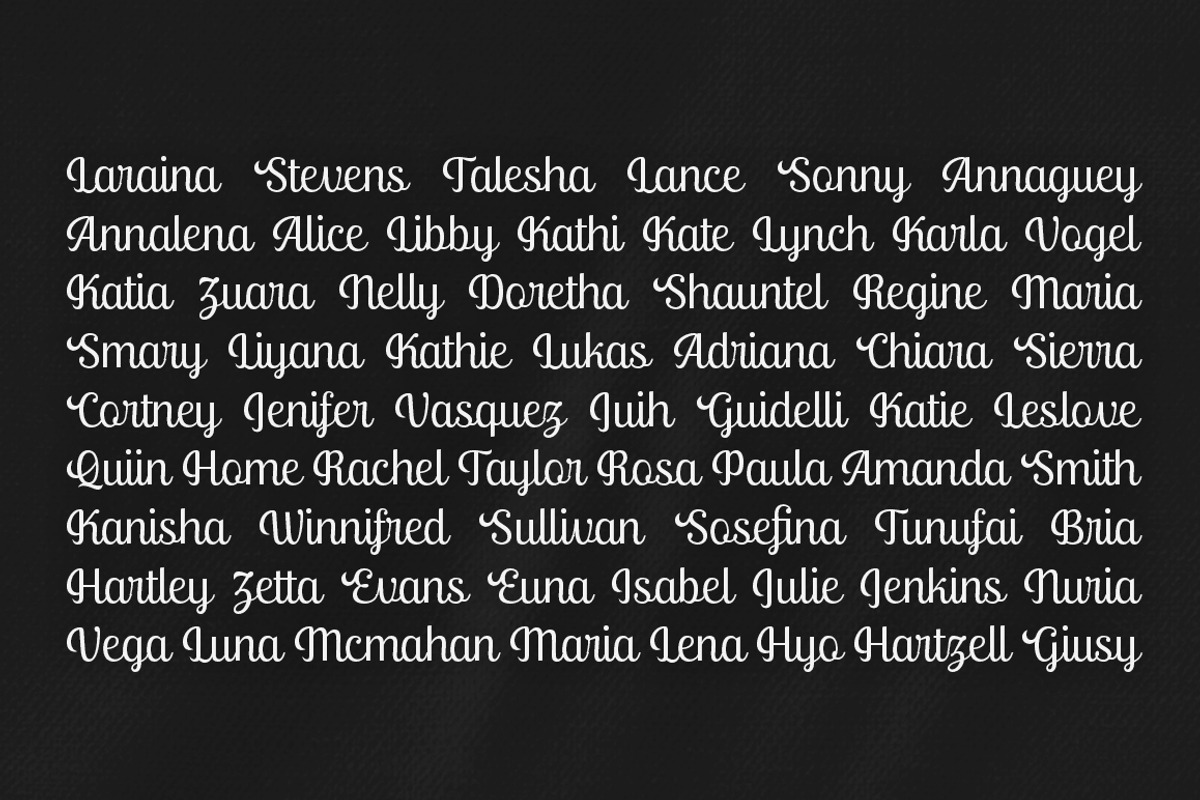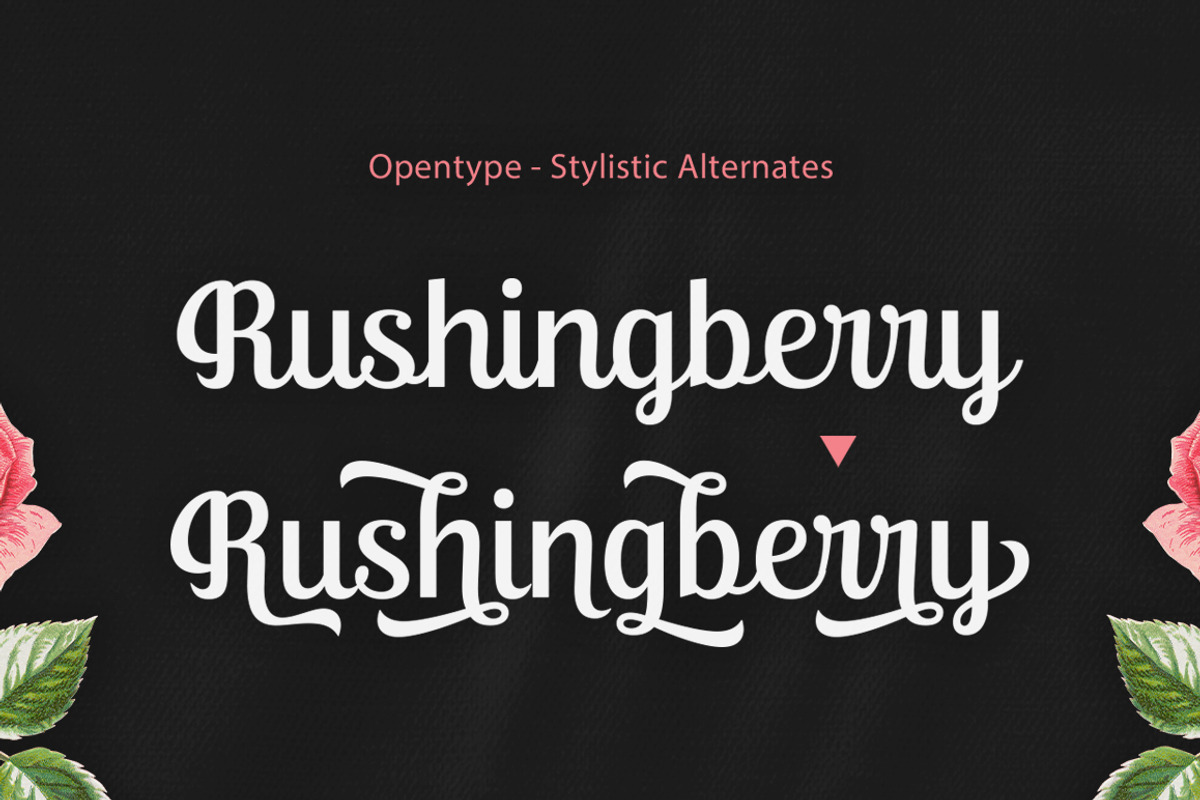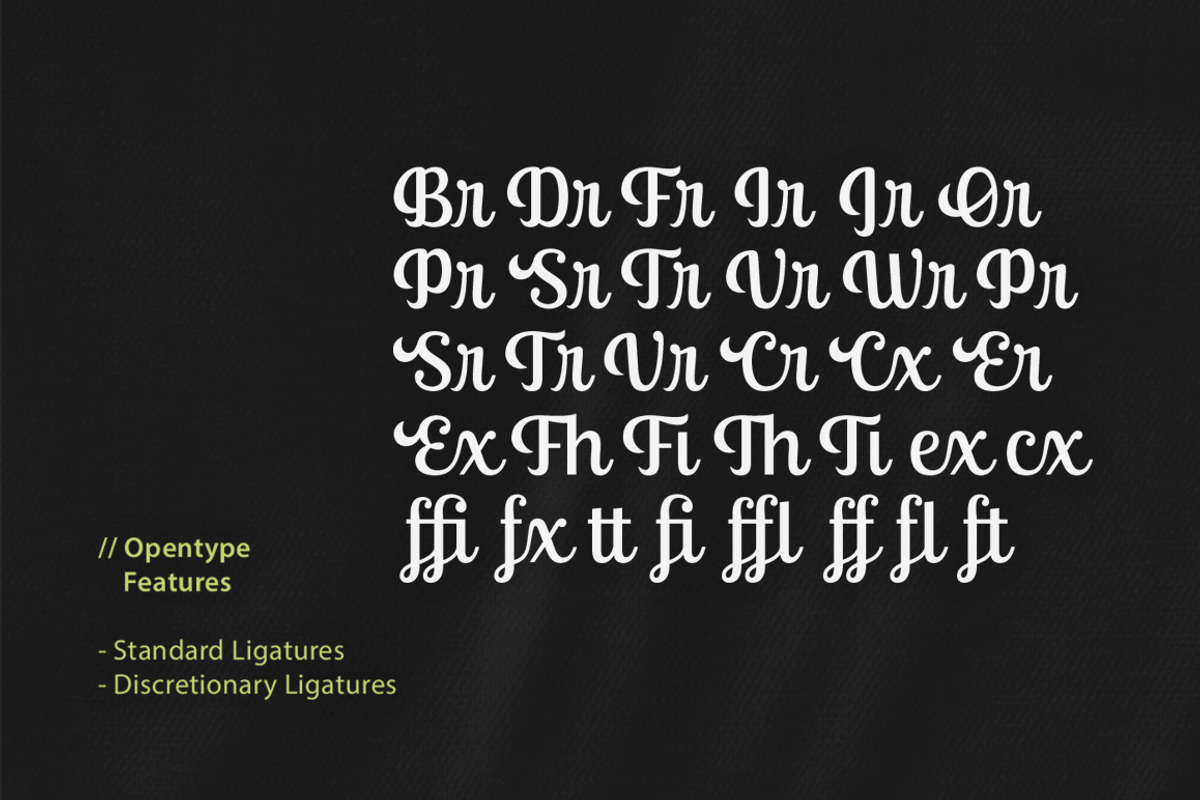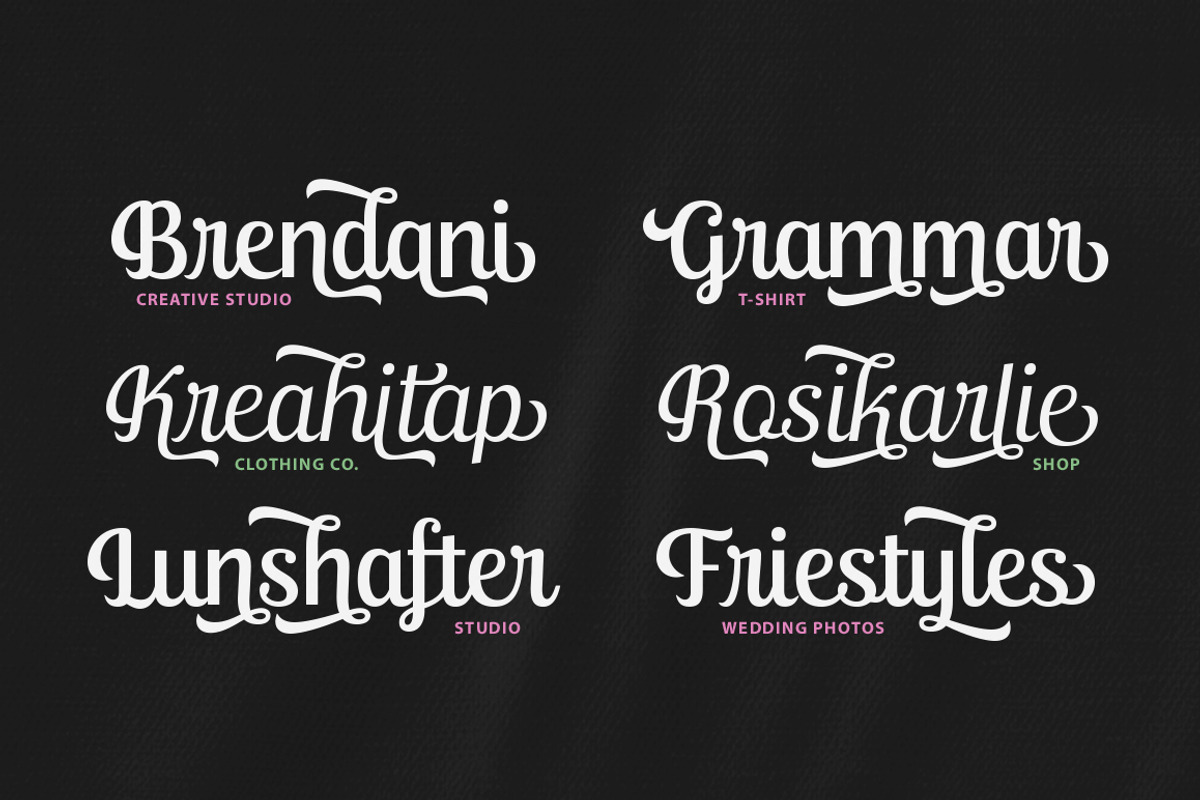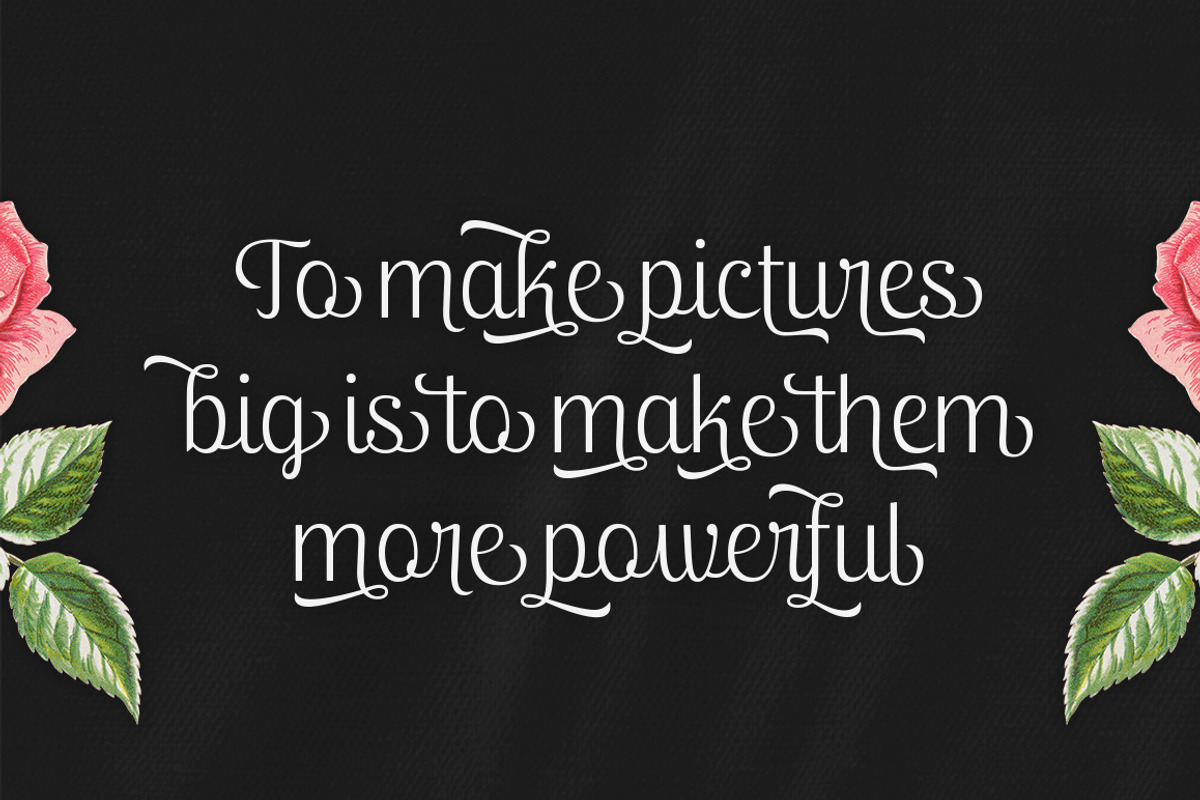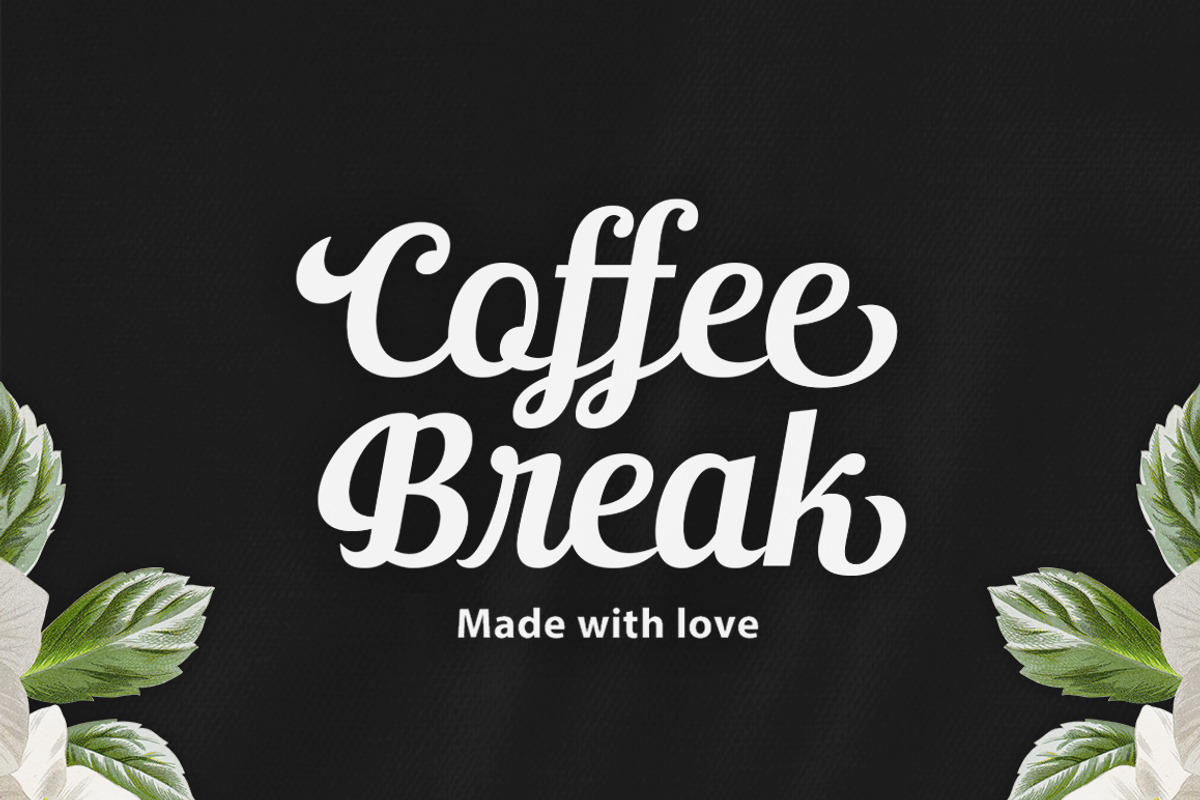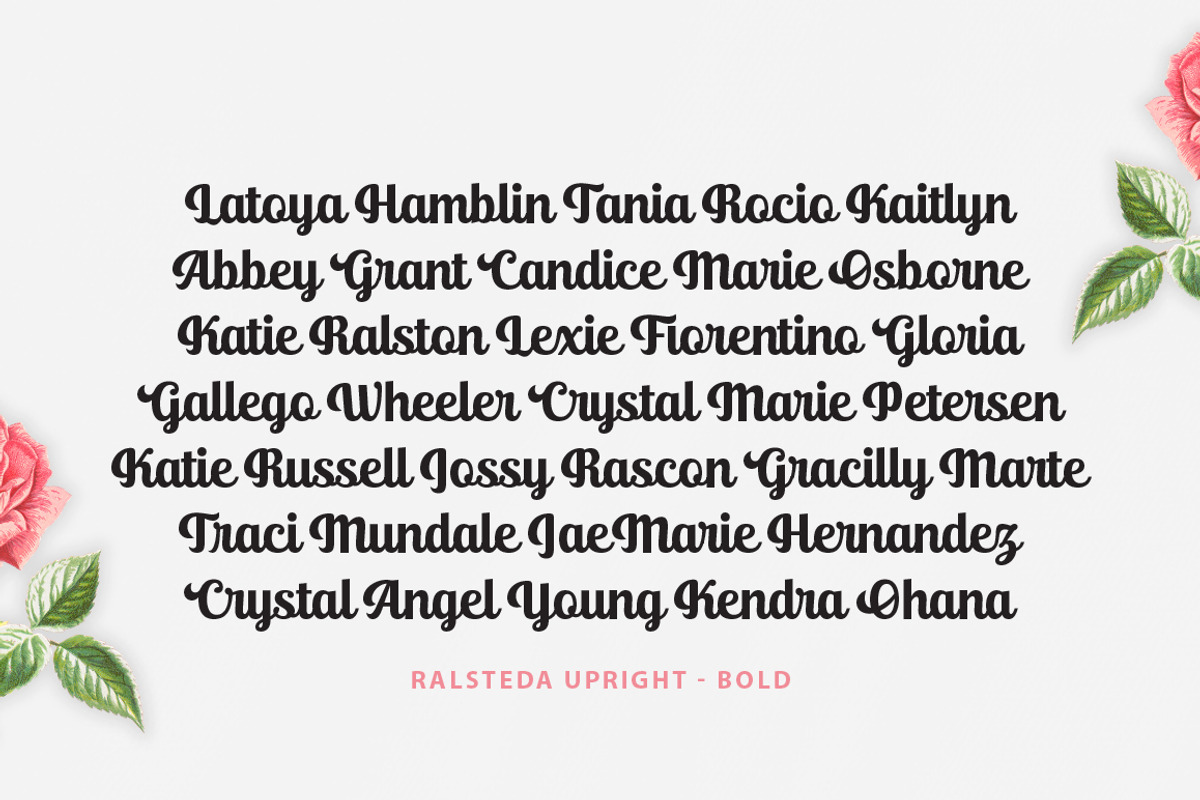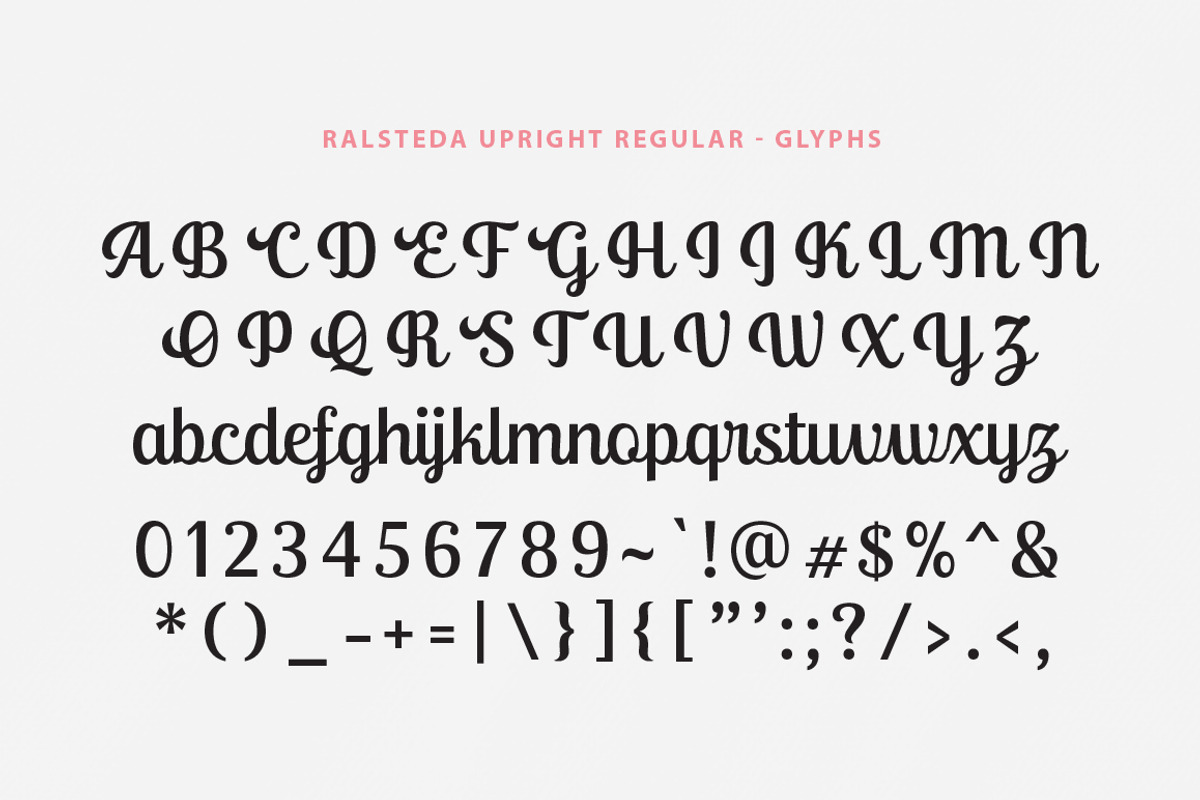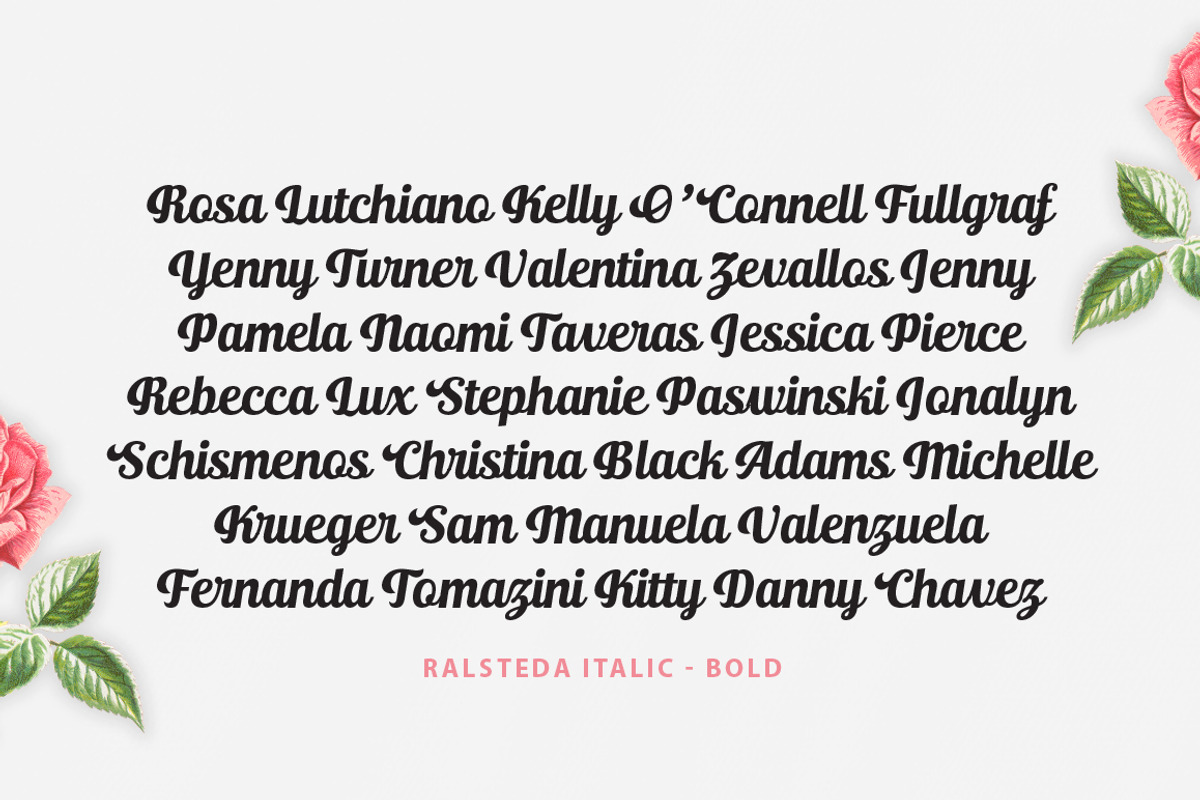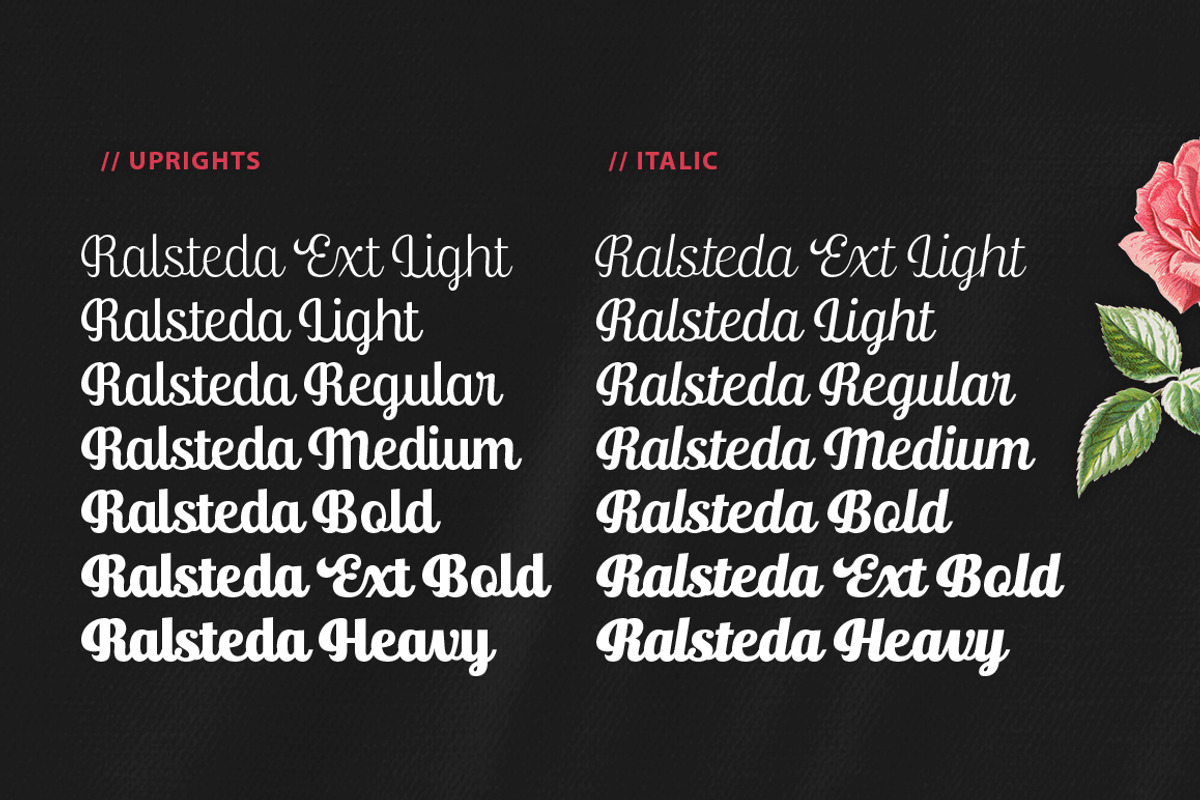
Ralsteda Font Family
Ralsteda is a vintage script font family. Classic and elegant touch. Ralsteda script family consist of 14 fonts with 7 weigths. There are so many variations on each character. Include Opentype stylistic alternates, standard ligatures, discretionary ligatures and multilingual support. You are able to create so many different typographical layouts easily and quickly. This font is suitable for badges, lable, posters, wedding invitation, t-shirts, signage, logos, branding, packaging, etc.